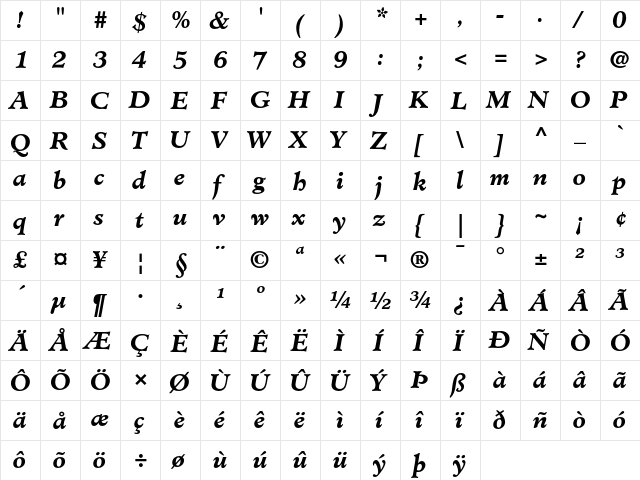
Minister Bold Italic
Design Context for Minister Typeface
Minister is a composed and adaptable typeface that performs quietly and consistently across a wide range of design contexts. The dynamic lean of this cut emphasises speed and emphasis in any layout. The heavy weight commands attention and anchors typographic hierarchies.
Pro Tip: Use Minister for emphasis, pull quotes, and subheadings where its slanted energy can add rhythm to the layout.